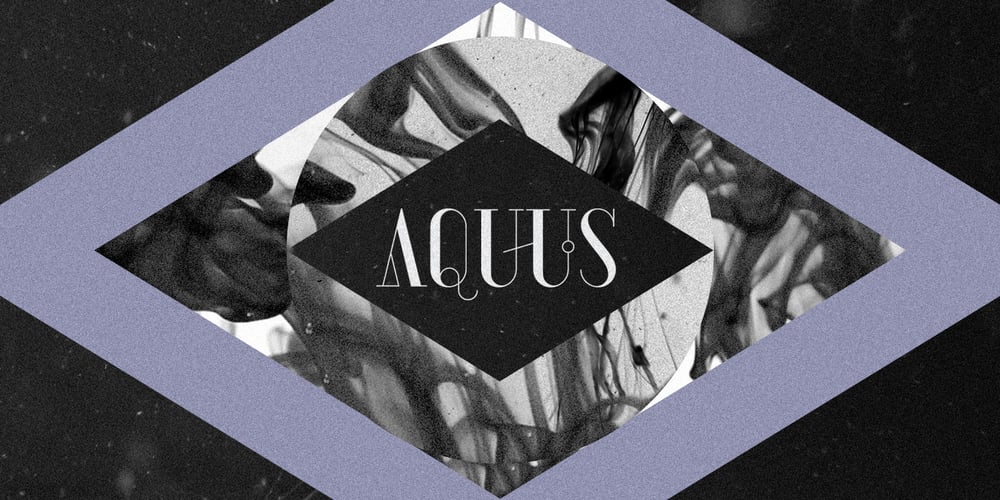
Aquus Font Family was designed by Roland Hörmann, Felix Auer and published by phospho. Aquus contains 6 styles and family package options. Aquus is a contemporary all-caps display font that refines the elegance of a classic Didone with experimental interventions. Geometric elements and subtle details are found in its letters, many of which connect to ligatures. Most alternate glyphs can be switched automatically by use of the Stylistic Set function in OpenType-supporting applications, others you can access manually via the glyphs palette. You may try Aquus Linearis as a fashionable outline variant, which reveals its beauty especially when combined with imagery. Use them best for concise strings of characters, such as logotypes, packaging or magazine titles. Aquus Simplex is their sober companion, based on the same letterforms, minus the geometric ornaments and conjunctions.